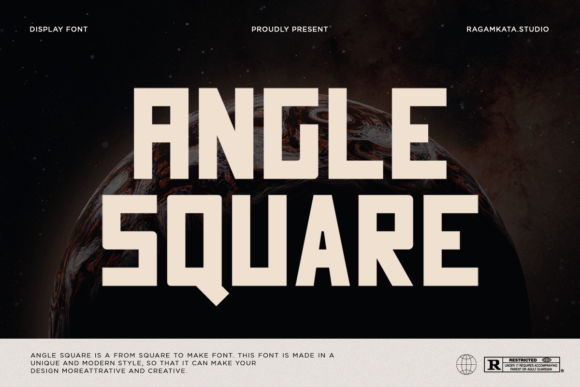
Angle Square Font: Elevate Your Design with a Unique and Modern Style
The world of typography is vast and diverse, with numerous font styles to choose from, each with its own distinct character and charm. One font that has gained popularity in recent years is the Angle Square Font, a font made from square shapes that boasts a unique and modern style. In this article, we’ll delve into the world of Angle Square Font, exploring its features, benefits, and uses, and discuss how it can elevate your design to new heights.
What is Angle Square Font?
Angle Square Font is a typeface designed using square shapes, which gives it a distinctive and futuristic look. The font’s unique design makes it stand out from traditional fonts, adding a touch of modernity and creativity to any design project. The square shapes used to create the font are carefully crafted to produce a cohesive and visually appealing effect.
Benefits of Using Angle Square Font
So, why should you choose Angle Square Font for your design project? Here are some benefits that make it an attractive option:
- Unique and Modern Style: Angle Square Font’s futuristic design gives it a unique and modern style that sets it apart from traditional fonts.
- Attention-Grabbing: The font’s distinctive design makes it perfect for headlines, titles, and other attention-grabbing elements.
- Versatile: Angle Square Font can be used for a wide range of design projects, from logos and branding to posters and social media graphics.
- Easily Readable: Despite its unique design, Angle Square Font is easily readable, making it suitable for body text and other large blocks of text.
Uses of Angle Square Font
Angle Square Font’s versatility makes it suitable for a wide range of design projects. Here are some examples of how you can use this font:
- Logo Design: Use Angle Square Font to create a unique and memorable logo for your brand.
- Posters and Flyers: Add a touch of modernity to your posters and flyers with Angle Square Font.
- Social Media Graphics: Use the font to create eye-catching social media graphics that grab attention.
- Branding and Identity: Angle Square Font is perfect for creating a modern and cohesive brand identity.
Design Tips for Using Angle Square Font
To get the most out of Angle Square Font, here are some design tips to keep in mind:
- Use it Sparingly: While Angle Square Font is attention-grabbing, it’s best to use it sparingly to avoid overwhelming the reader.
- Pair it with Other Fonts: Combine Angle Square Font with other fonts to create a unique and visually appealing effect.
- Experiment with Colors: Try out different colors and gradients to add depth and interest to your design.
- Keep it Simple: Don’t overcomplicate your design – keep it simple and clean to let the font shine.
Font Pairing Suggestions
To create a harmonious and visually appealing design, it’s essential to pair Angle Square Font with other fonts that complement its unique style. Here are some font pairing suggestions:
- Open Sans: A clean and modern sans-serif font that pairs well with Angle Square Font.
- Lato: A sleek and elegant sans-serif font that complements Angle Square Font’s futuristic design.
- Merriweather: A classic serif font that provides a nice contrast to Angle Square Font’s modern style.
Angle Square Font is a unique and modern font that can elevate your design to new heights. Its futuristic design, attention-grabbing style, and versatility make it suitable for a wide range of design projects. By following the design tips and font pairing suggestions outlined in this article, you can create stunning designs that showcase the beauty of Angle Square Font.